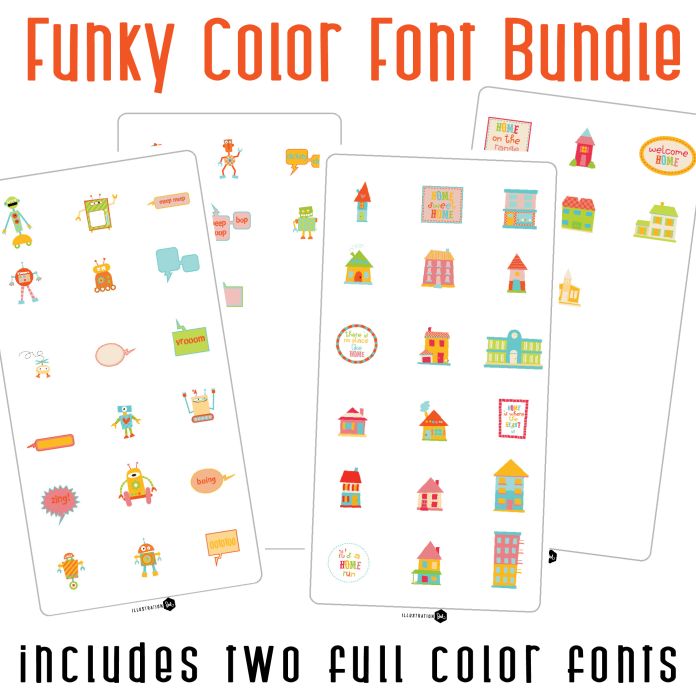
This bundle includes two full color dingbat fonts for one low price! So that is two fonts for the price of one! Get 26 funky house full color images and 26 funky robot full color images, perfect for cards, crafts, gifts, decor, classrooms, planner stickers, scrap book pages and more!
A full-color font stores svg data inside an Open Type font file. This font will look black if not used in a program like Silhouette Studio which is compatible.